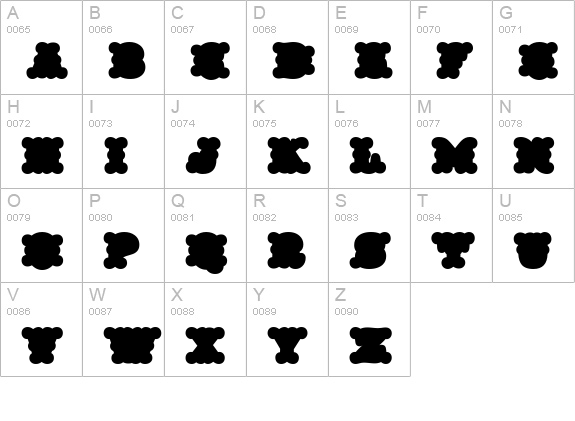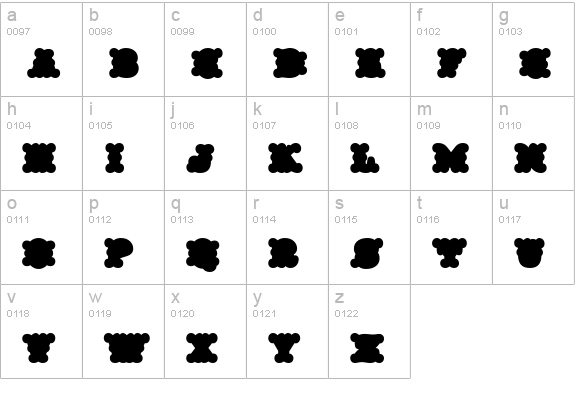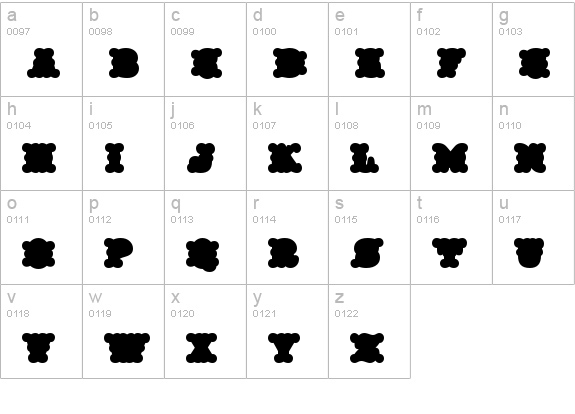
Introducing Taqueria Open Fill XL font, a bold and vibrant typeface that will bring your designs to life. With its playful and eye-catching design, this font is perfect for grabbing attention and making a statement. Featuring a unique combination of thick and thin strokes, Taqueria Open Fill XL font exudes a sense of energy and dynamism. Whether you're designing a poster, a logo, or a social media graphic, this font will add a touch of personality and creativity to your project. But the best part? Taqueria Open Fill XL font is completely free to download at FontsMarket.com. That's right, you can enhance your designs without breaking the bank. Simply visit FontsMarket.com, search for Taqueria Open Fill XL font, and start using it in your projects today. This font is not only visually stunning, but it is also incredibly versatile. It can be used for a variety of purposes, from headlines and titles to body text and captions. Its legibility and clarity ensure that your message will be conveyed effectively, no matter the size or medium. Whether you're a professional designer looking to add some flair to your work or a casual user in need of a font that stands out, Taqueria Open Fill XL font is the perfect choice. So don't wait any longer, head over to FontsMarket.com and download this amazing font for free. Your designs will never be the same again.